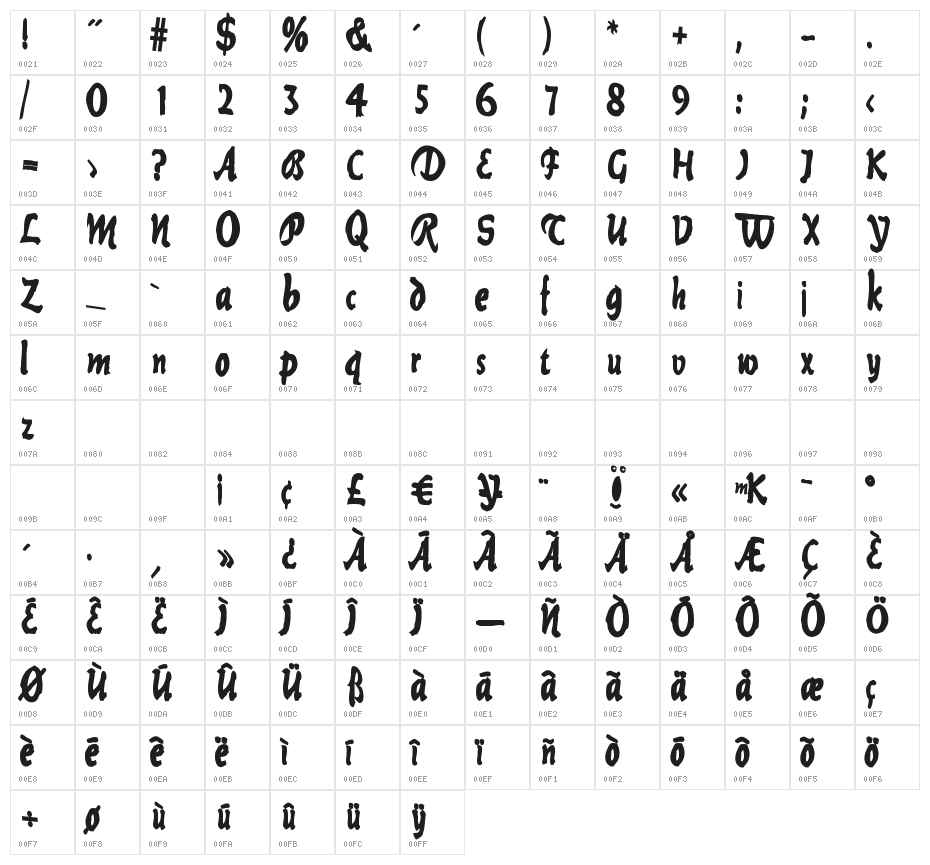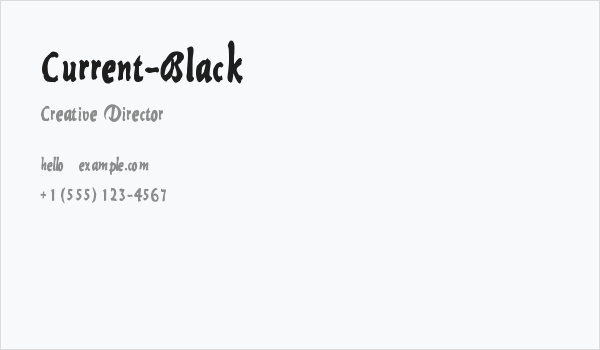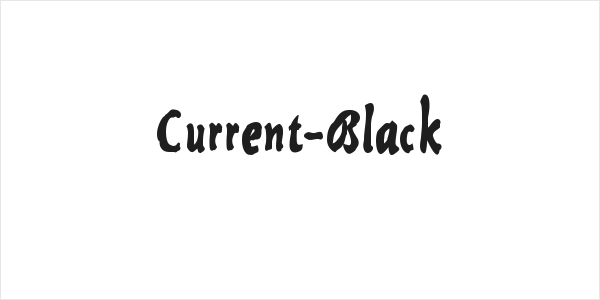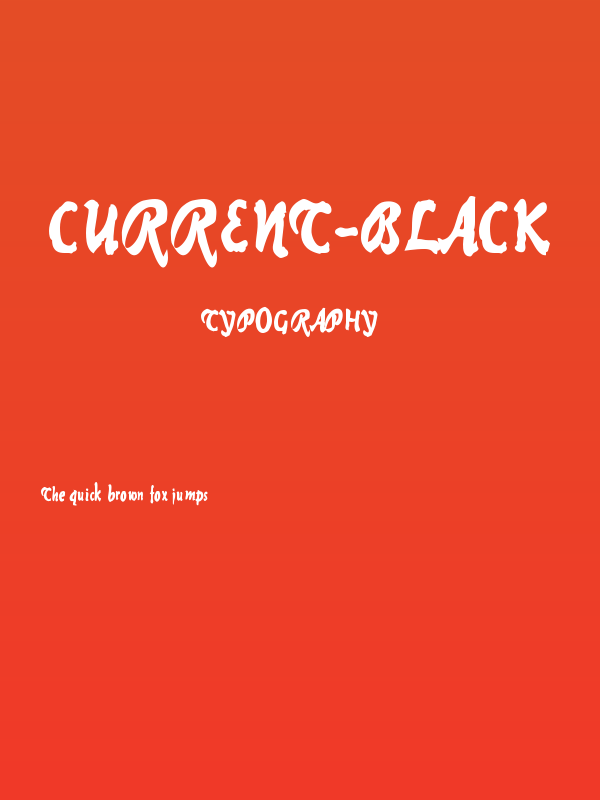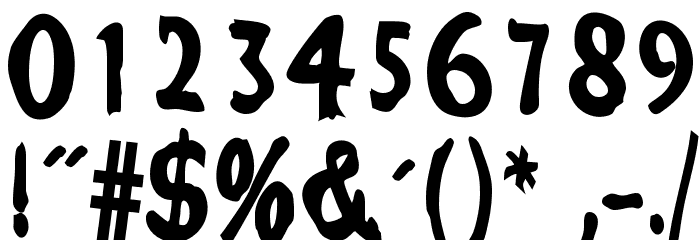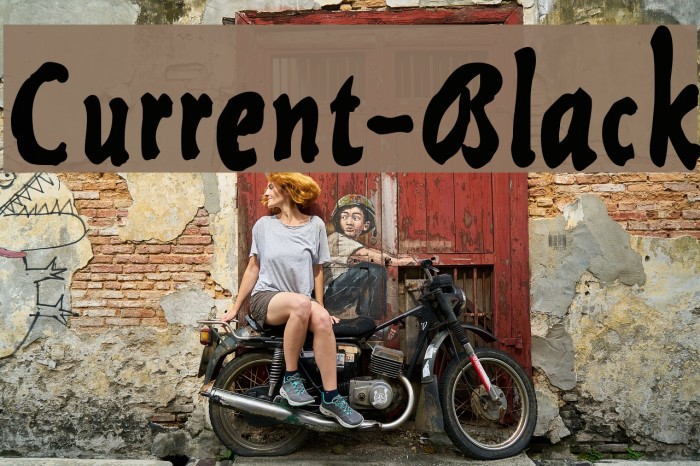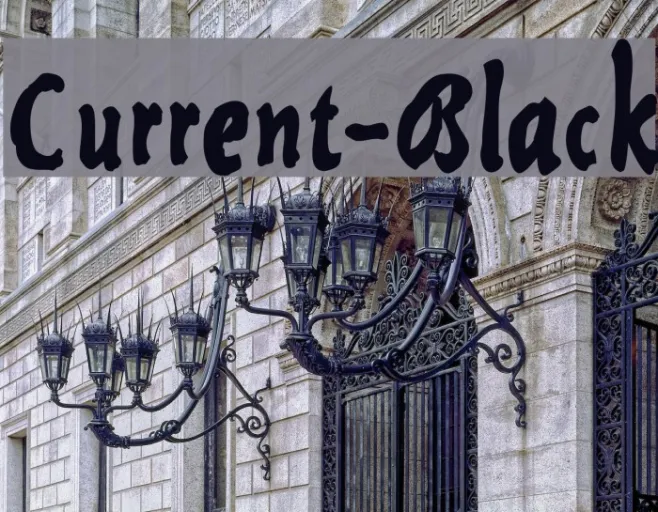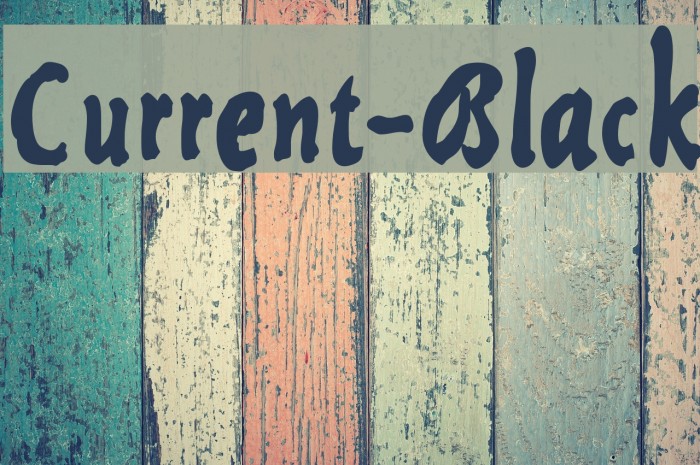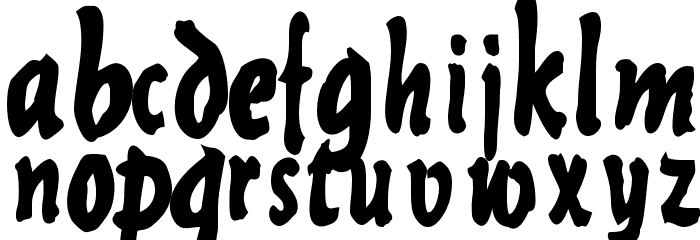
Current-Black Font
Current-Black Description
This font exhibits a bold and expressive style with a handwritten appearance. The characters are thick and have a playful, dynamic flow, reminiscent of brush strokes. The uppercase letters are slightly larger and more pronounced, while the lowercase letters maintain a consistent size and style. The numbers and special characters follow the same bold and artistic design, making the font suitable for creative and informal applications. The overall look is both modern and artistic, with a touch of whimsy.
| Overall Style | Modern, Artistic |
| Use Case | Headlines, Posters, Branding |
| Proposed Projects | Ideal for creative projects such as posters, invitations, and branding materials where a bold, artistic touch is desired. |